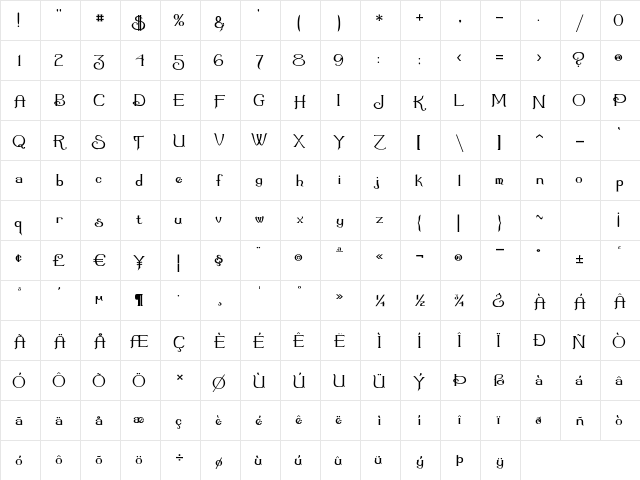
Summertime Regular
| Designer | Sara |
Design Context for Summertime Typeface
Summertime is a composed and adaptable typeface that performs quietly and consistently across a wide range of design contexts.